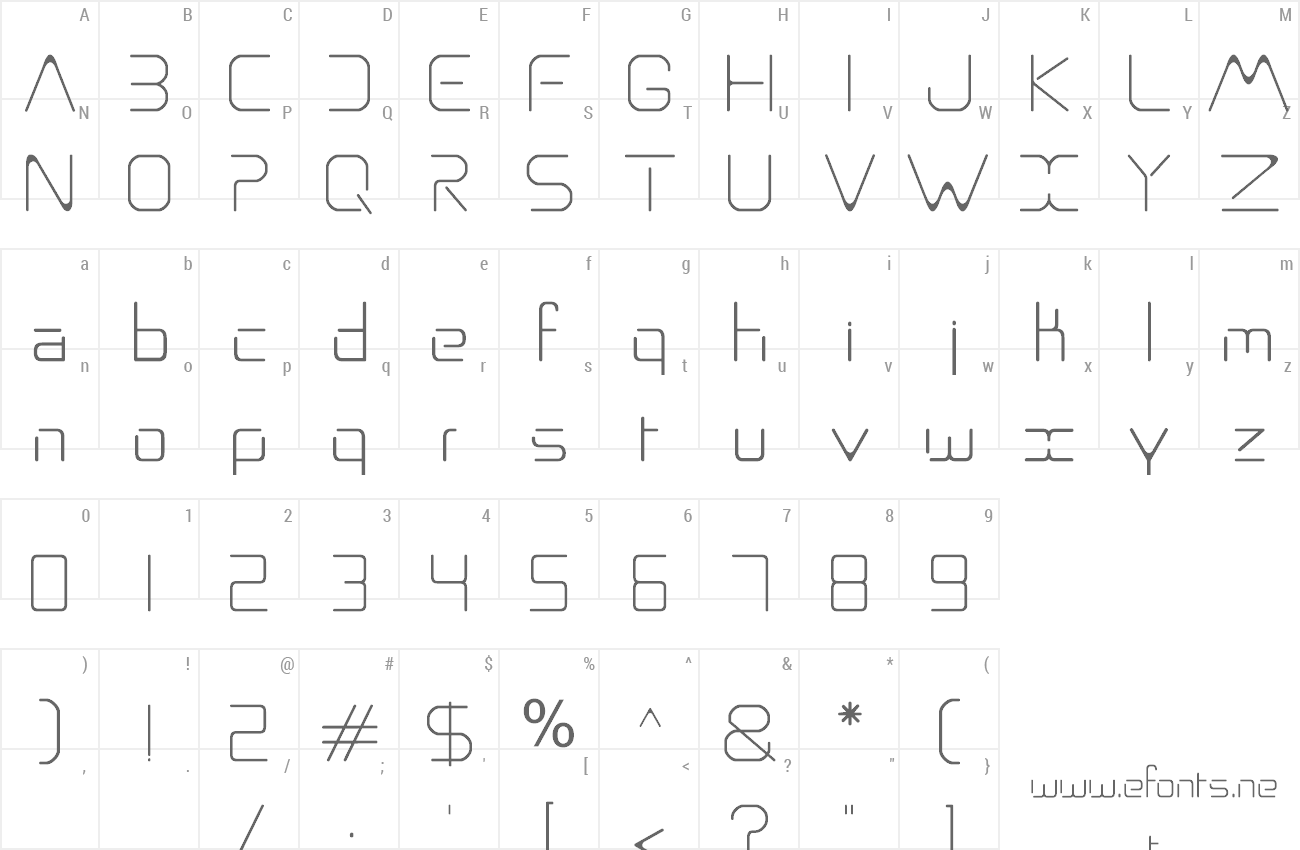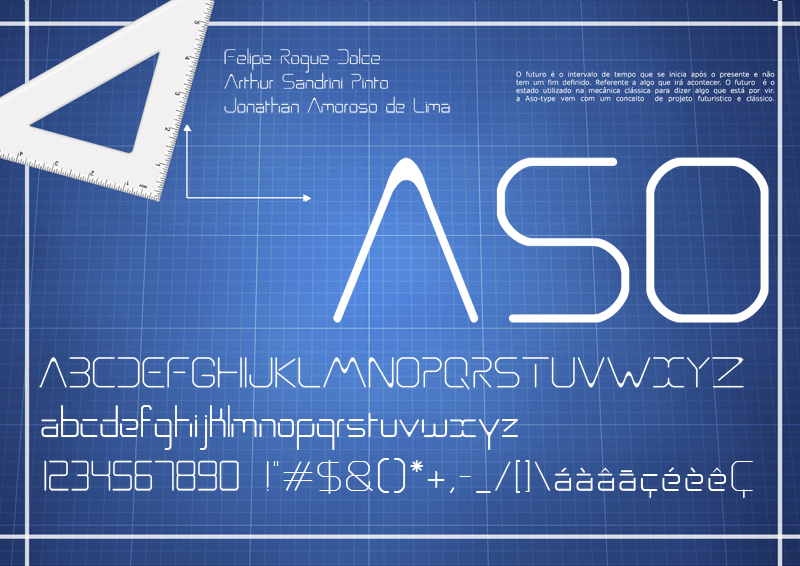
Preview and download ASO Font. Created by Ocio Criativo in Techno Various styles with Donationware license.
| Hello everyone, we are the OCIO Design and developed our first typography. The ASO is a futuristic concept and classic. |